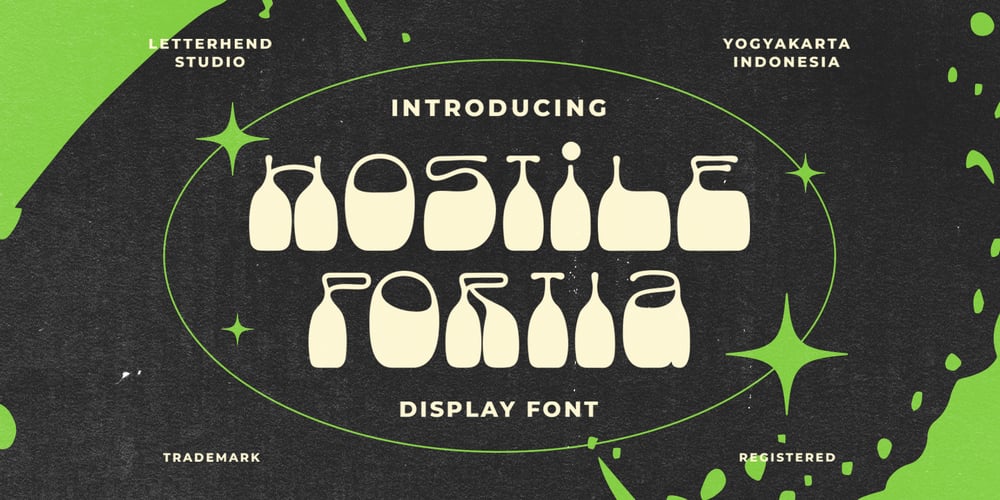
Hostile Portia
Hostile Portia font
Hostile Portia Font Family was designed by Hendry Juanda and published by Letterhend. Hostile Portia contains 1 styles and family package options. Hostile Portiais a reverse display font with fun and playful looks. This type of font perfectly made to be applied especially in storybook children or child theme which is need a standout font, and the other various formal forms such as invitations, labels, logos, magazines, books, greeting / wedding cards, packaging, fashion, make up, stationery, novels, labels or any type of advertising purpose.Features : regular & hand drawn numbers and punctuation multilingual PUA encoded We highly recommend using a program that supports OpenType features and Glyphs panels like many of Adobe apps and Corel Draw, so you can see and access all Glyph variations.